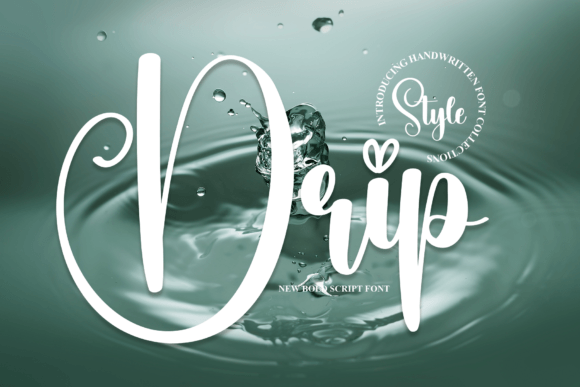
Discover the Perfect Drip for Your Next Design Project
Remember that moment when you stumbled upon the perfect font for your project? The one that instantly brought your design to life and made you feel like you’d hit the jackpot? For many designers, that moment can be elusive, but with the right tools, it’s within reach. One such font that’s sure to become your new favorite is the Drip Font – a cool and casual handwritten font that’s perfect for crafting unique designs.
Whether you’re working on digital designs, presentations, or making handmade greeting cards, Drip Font is an invaluable asset to have in your toolkit. Its versatility and ease of use make it a go-to choice for designers of all levels, and its unique, handwritten feel adds a touch of personality to any project. With Drip Font, you’ll be able to create designs that truly stand out from the crowd.
Drip Font Key Features
- Unique Characteristics: Drip Font features a unique, hand-drawn design with subtle texture and organic feel, making it perfect for creative and artistic projects.
Drip Font Review
As a designer, I was excited to dive into the world of “Drip Font”. While it’s not a game-changer, there are some things that make it shine.
- Unique aesthetic: The font has a distinct, modern feel that sets it apart from more traditional fonts.
- High-quality glyphs: The characters are well-designed and look crisp, even at larger sizes.
- Good legibility: The font is easy to read, even in smaller text sizes.
- Limited font family: Drip Font is a single font family, which can make it less versatile for complex designs.
- No comprehensive language support: While it covers the basics, it may not be suitable for languages that require more complex typography.
- May not be suitable for body text: While the font looks great at larger sizes, it may be too bold or attention-seeking for body text.
Overall, I think Drip Font is a solid choice for designers looking to add a modern touch to their projects. While it has some limitations, its unique aesthetic and high-quality glyphs make it worth considering for the right projects.
Tips for Getting the Most Out of Drip Font
Use Drip Font to add a touch of elegance and sophistication to your designs.
Pair Drip Font with other bold or script fonts to create a unique and eye-catching combination.
Use Drip Font in creative ways, such as in quotes or headlines, to add visual interest to your designs.
Drip Font is perfect for:
Branding and logos
Quotations and motivational posters
Product packaging and labels